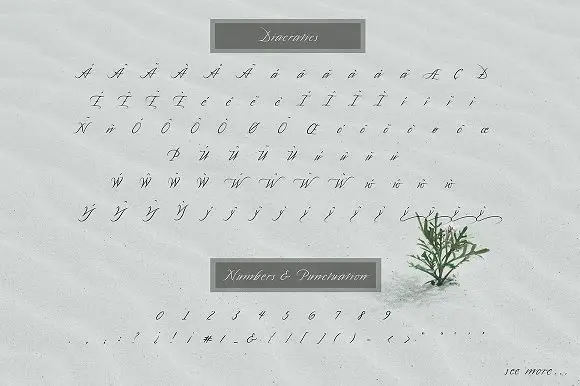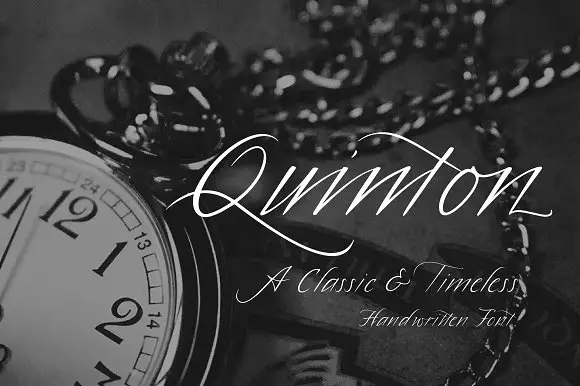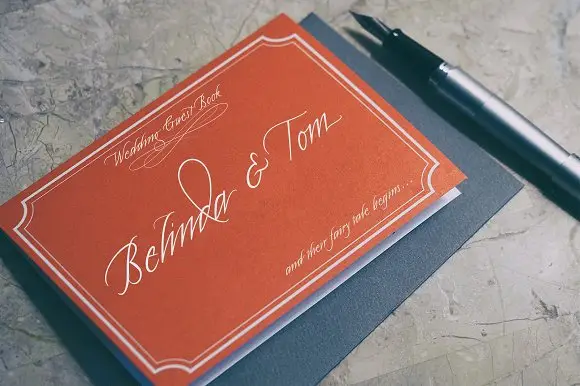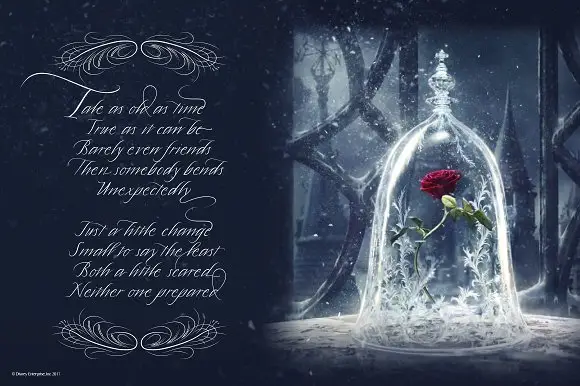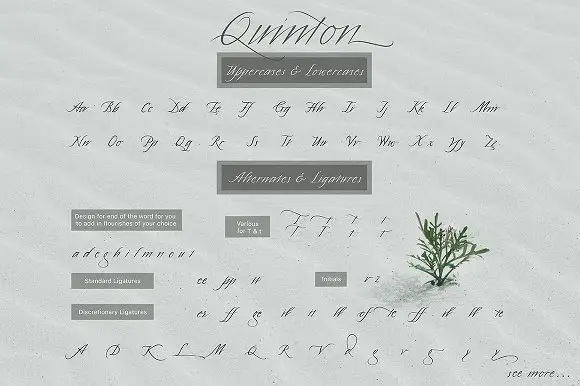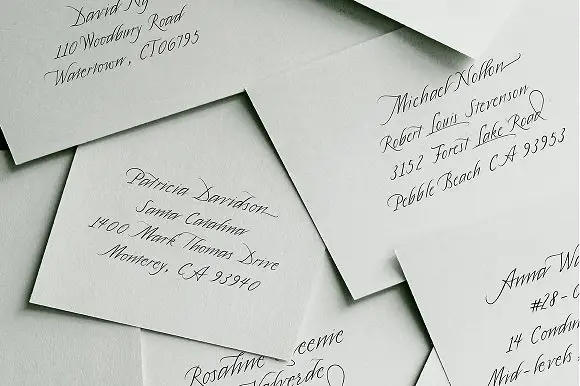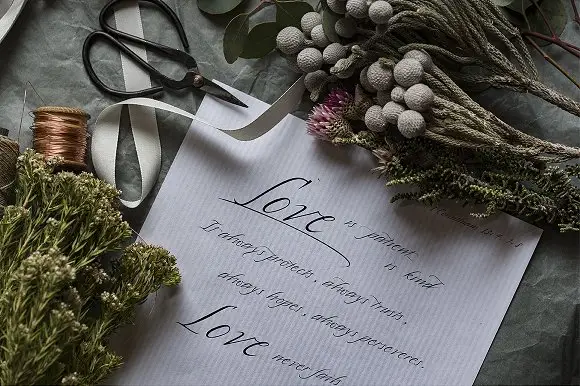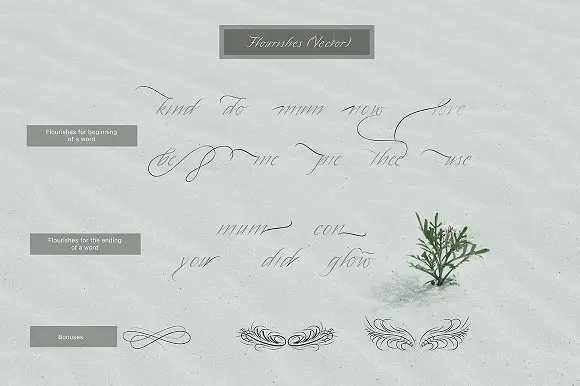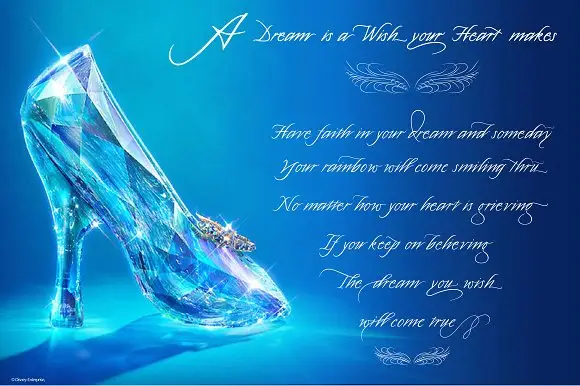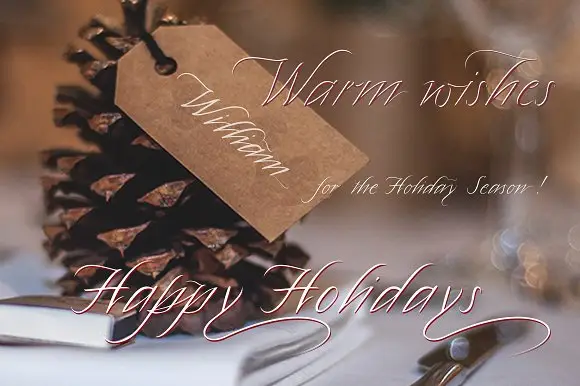
Quinton Script Font
Quinton Script Font is a beautifully crafted typeface that embodies elegance and sophistication. With its flowing curves and unique letterforms, this font is perfect for a variety of creative projects.
• Stylish script design with a modern touch
• Multiple weights for versatile usage
• Includes uppercase and lowercase letters, numbers, and punctuation
• Style: Script
• Weight: Regular
• Ideal for branding, logos, and invitations
• Use in UI designs for a touch of elegance